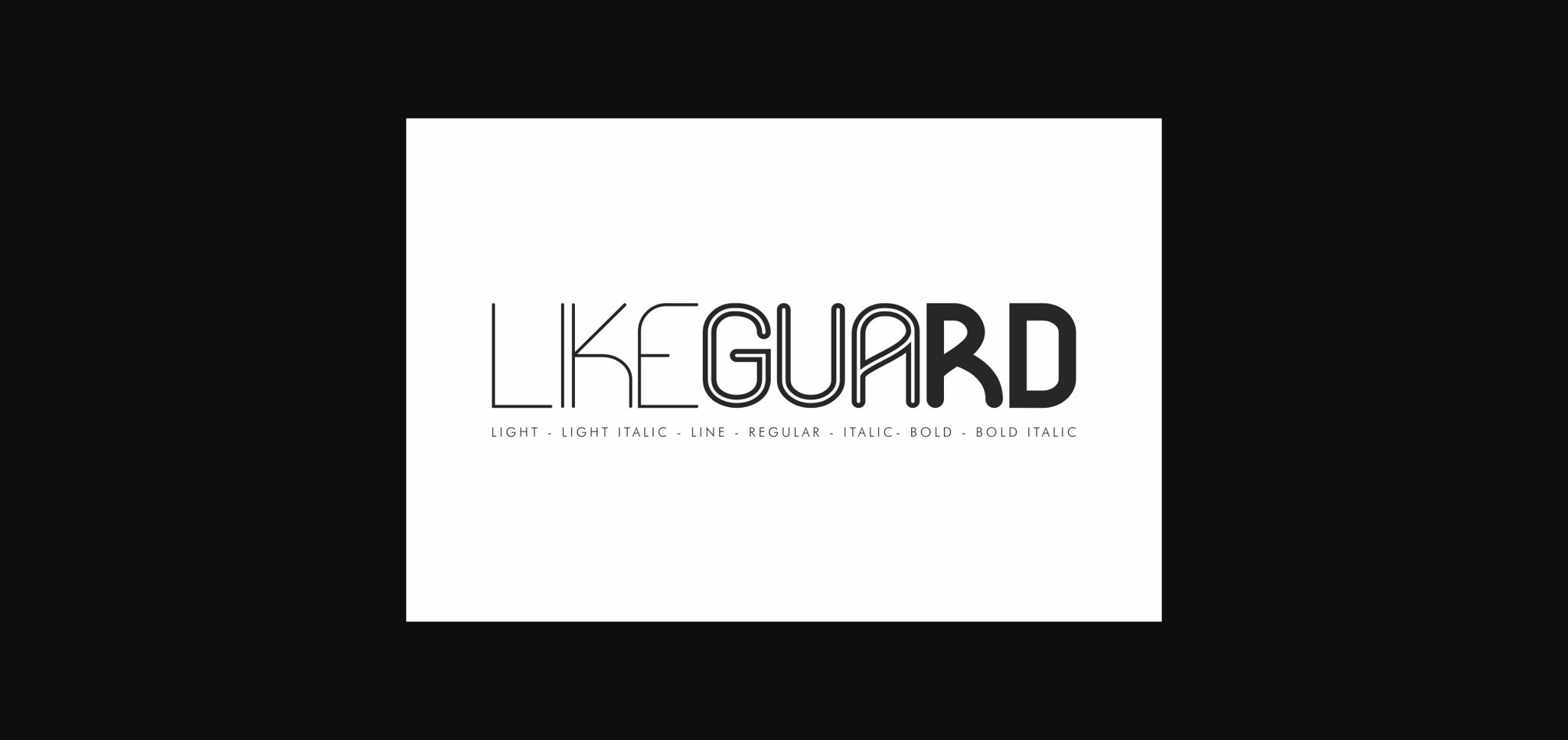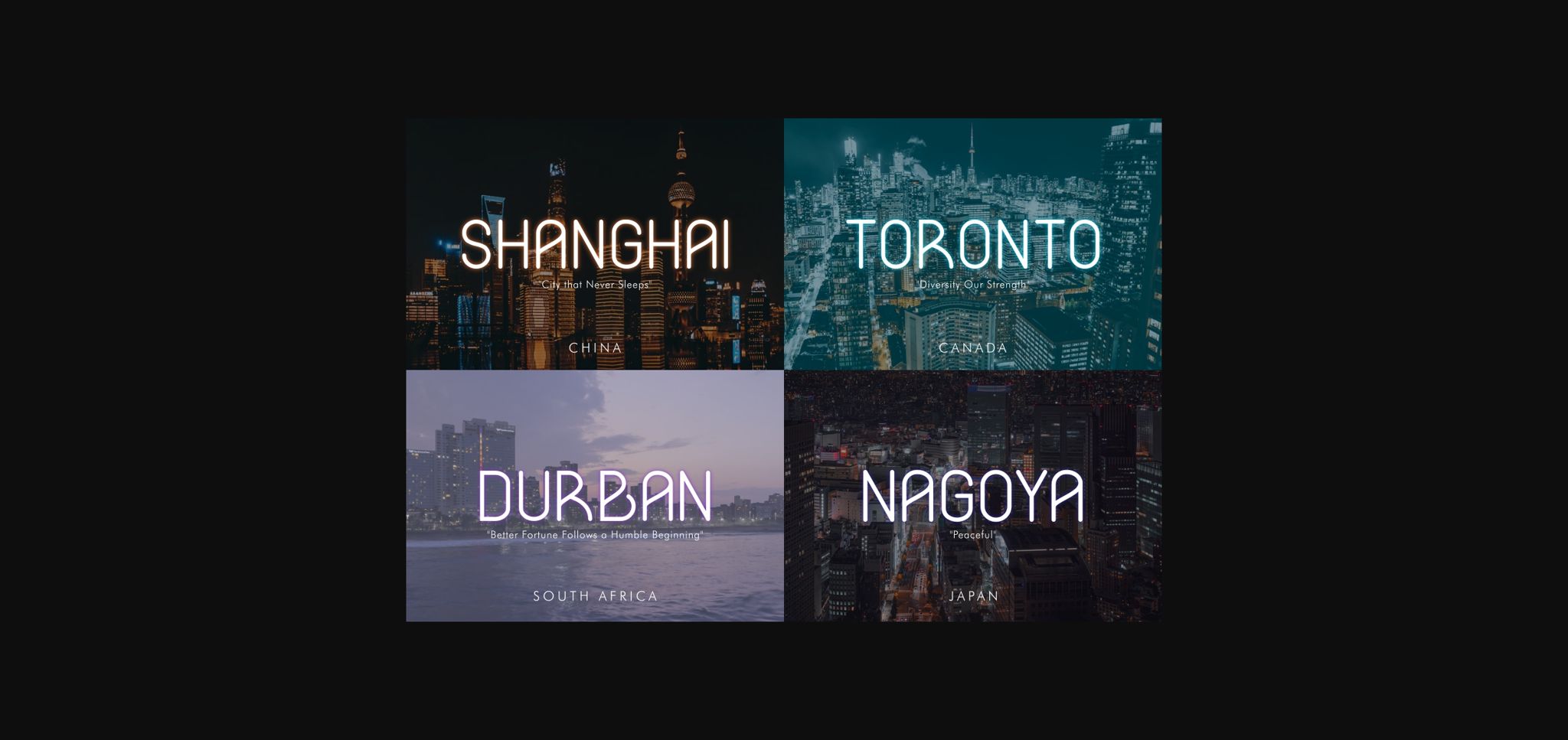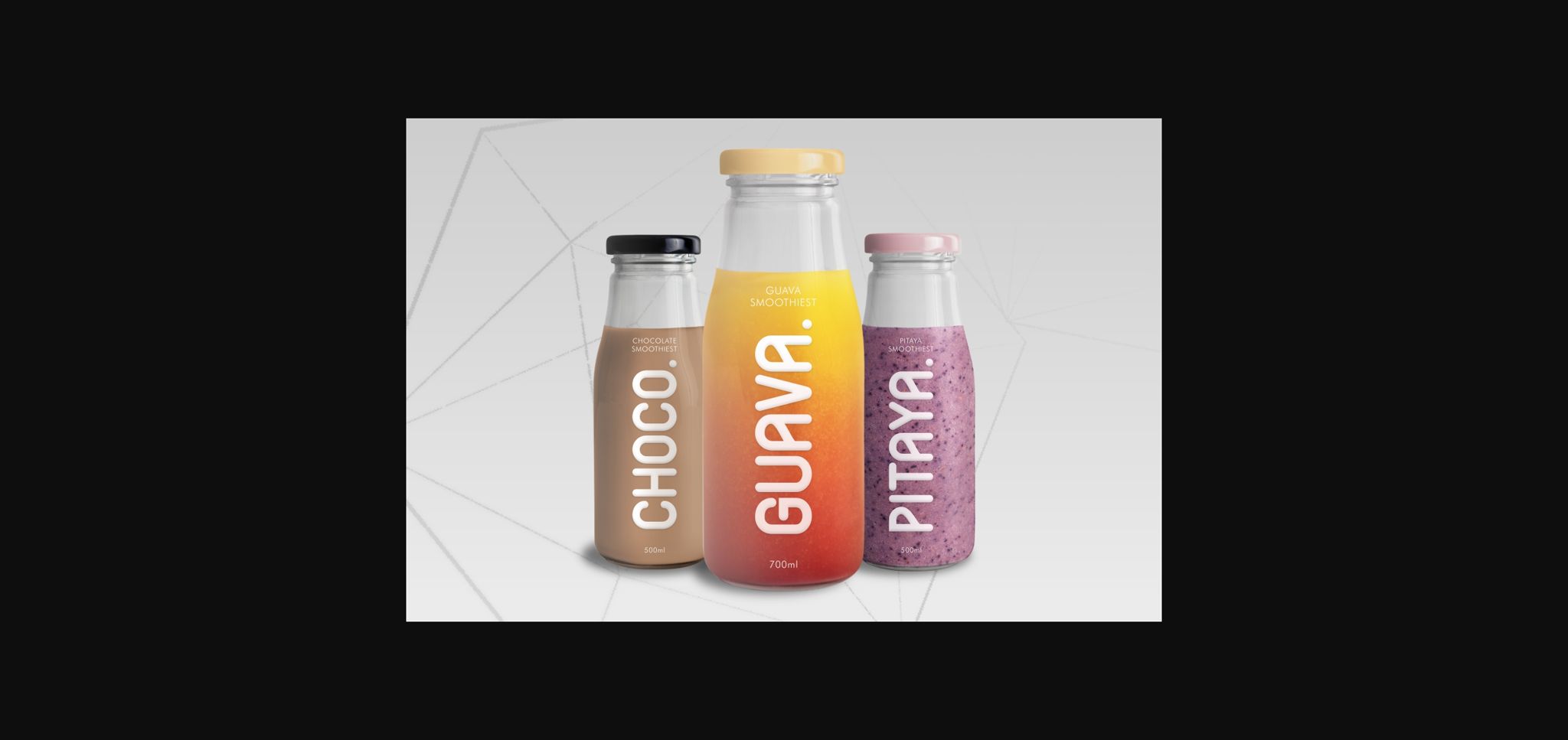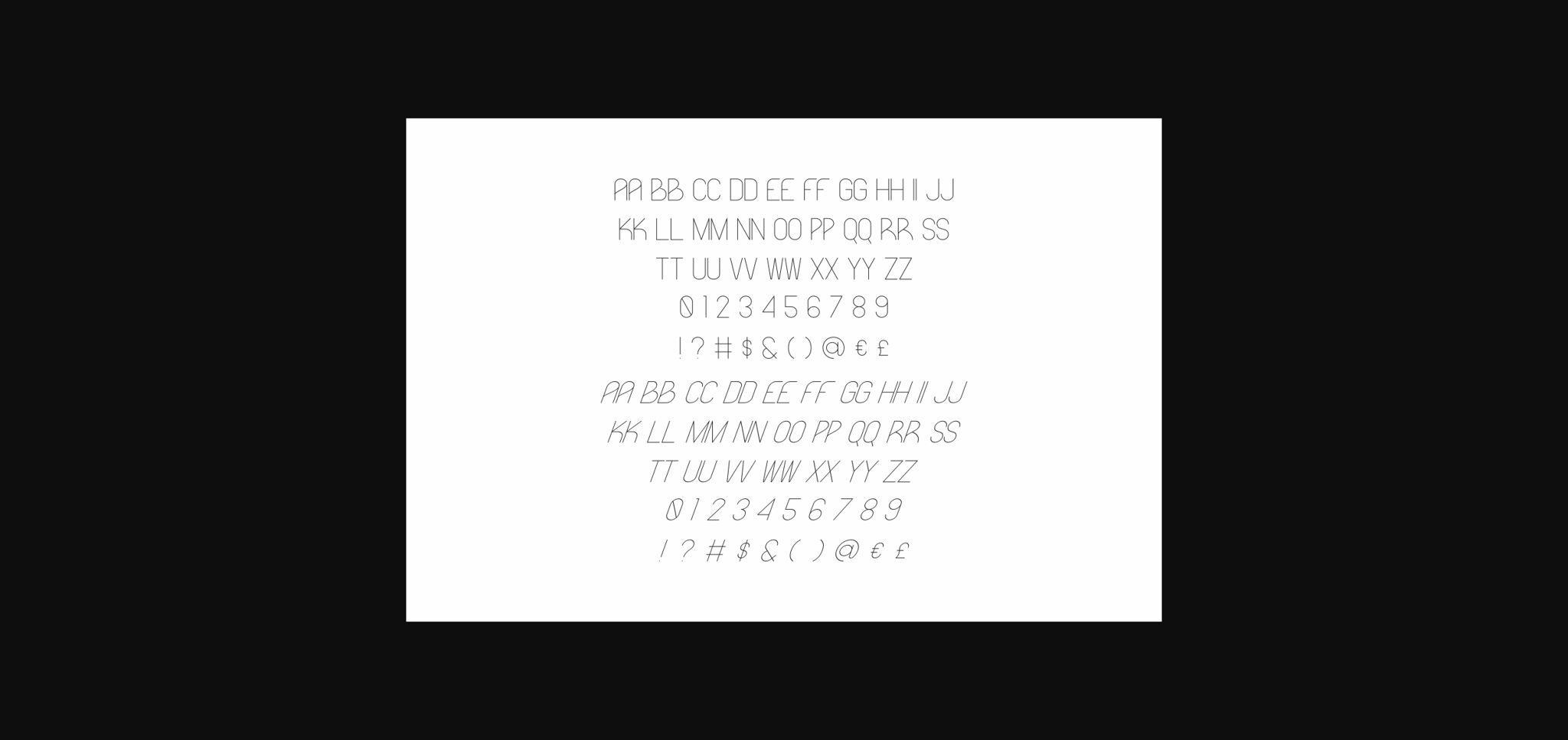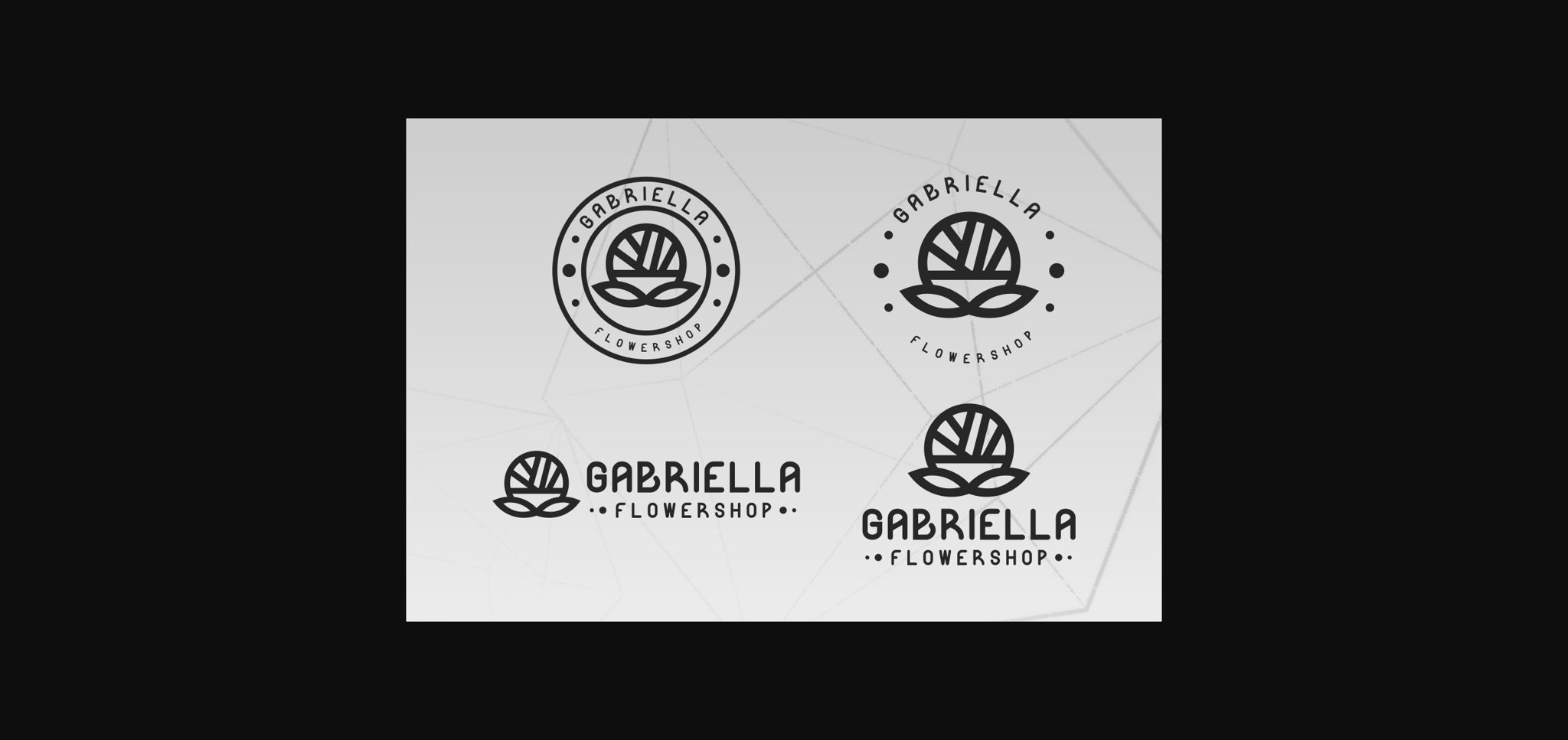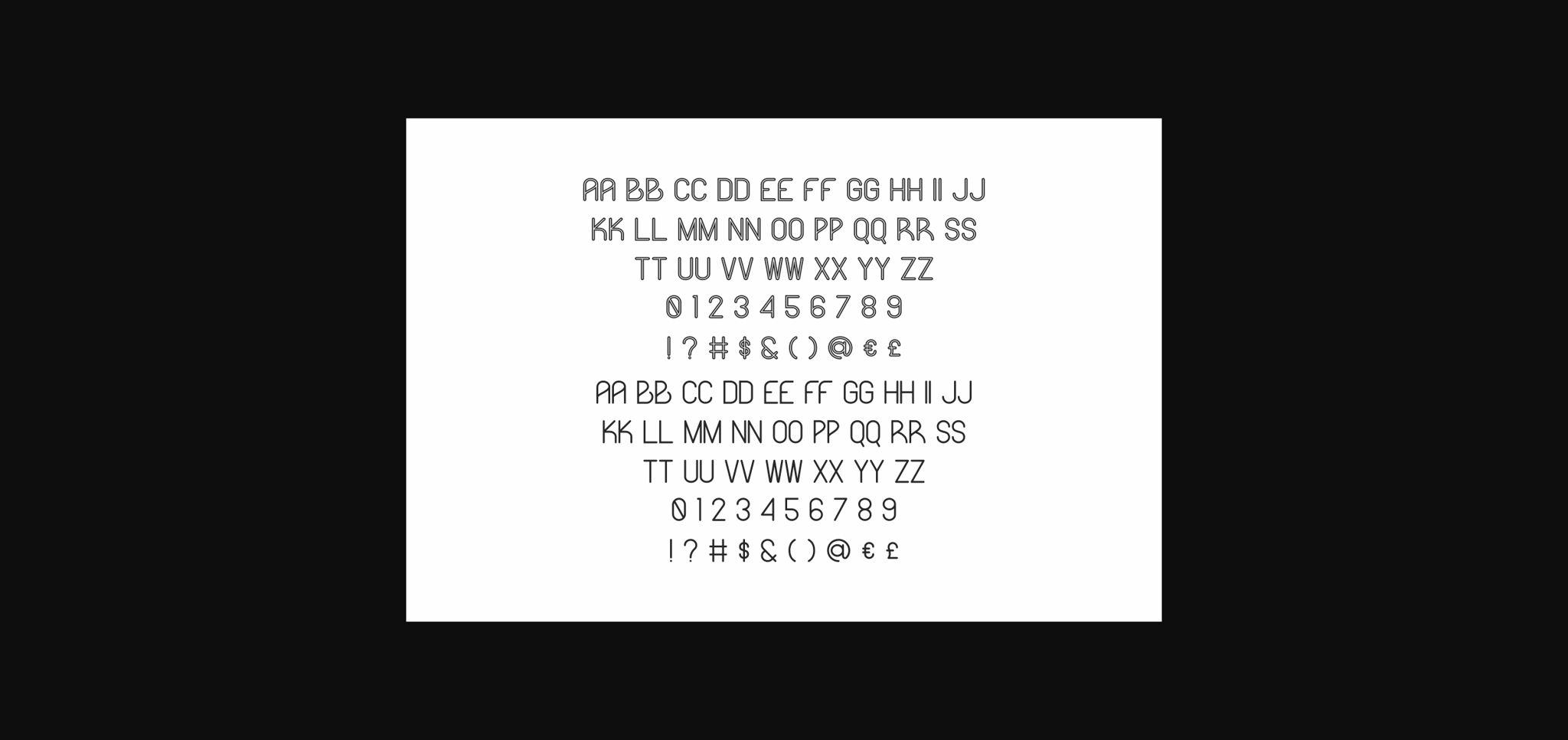
Likeguard Font
About Likeguard Font
Likeguard is a minimalist sans serif font. It can easily be matched to an incredibly large set of projects, so add it to your creative ideas and notice how it makes them stand out!